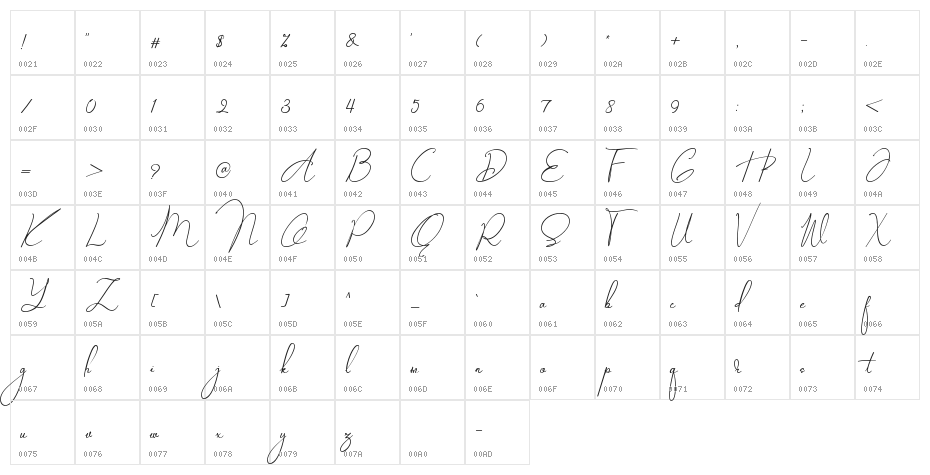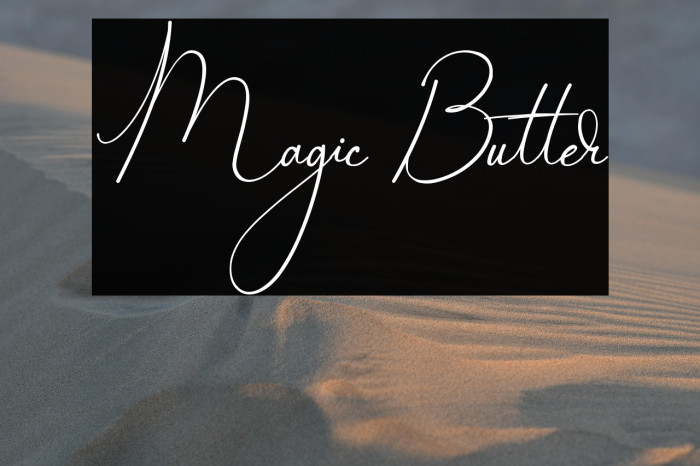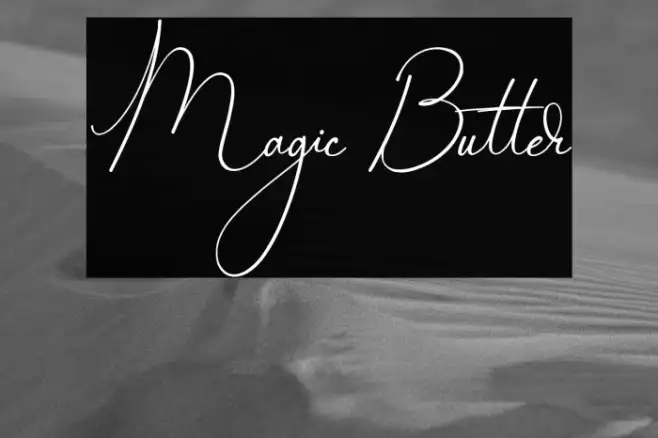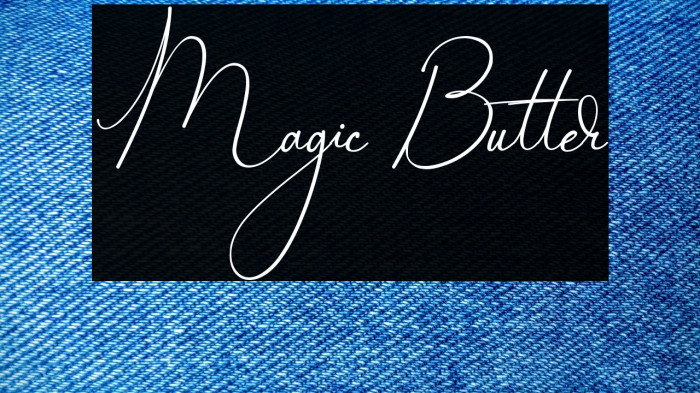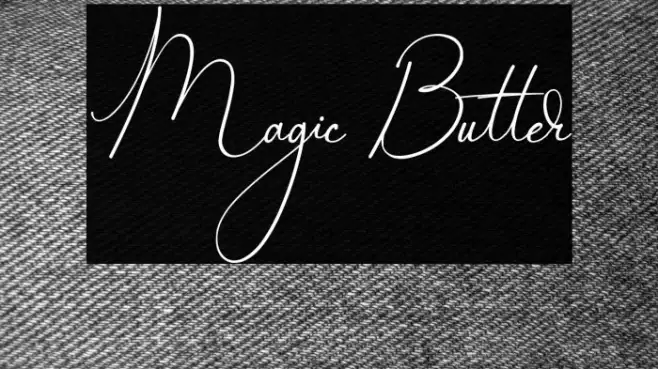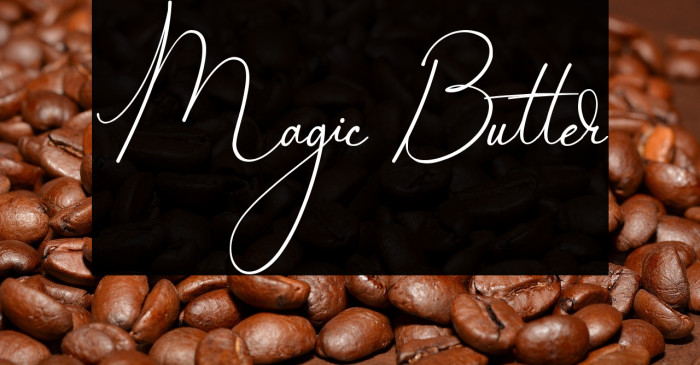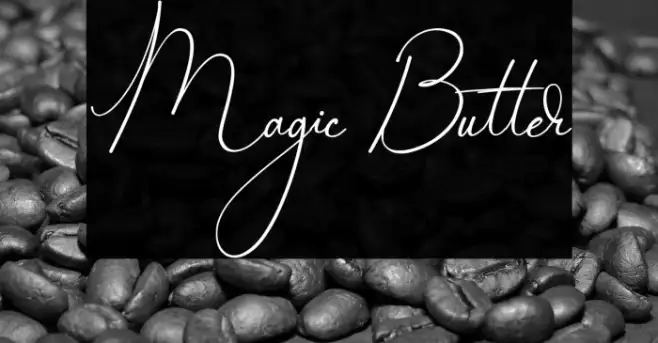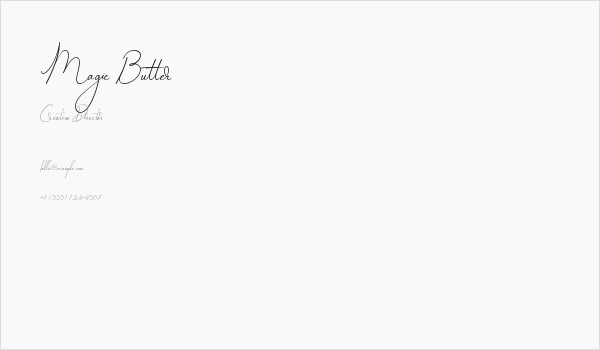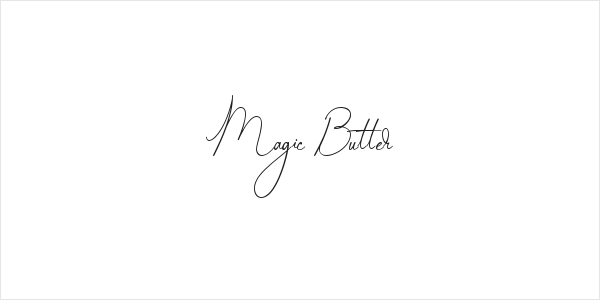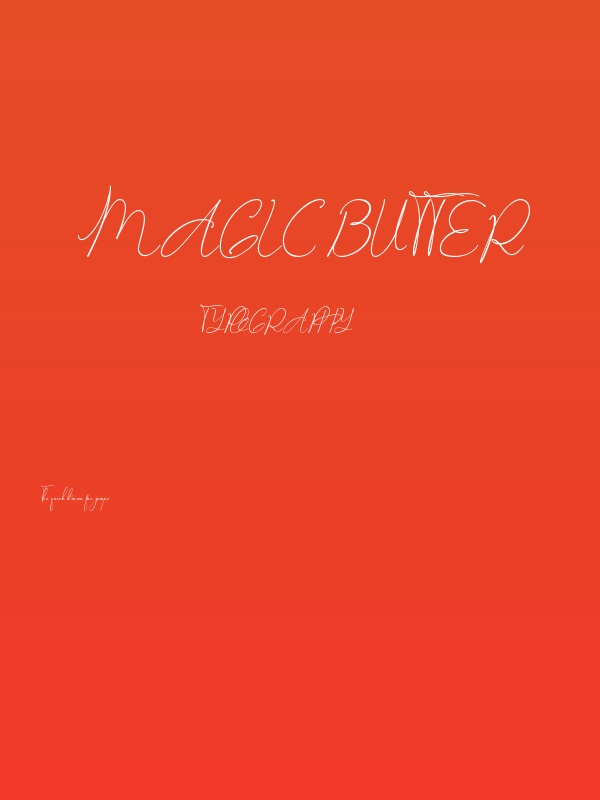
Magic Butter Font
Magic Butter Description
This font features a delicate and flowing script style, characterized by its elegant and fluid letterforms. The uppercase letters are tall and slightly slanted, giving a sense of movement and grace. The lowercase letters are intricately connected, enhancing the cursive aesthetic. The numerals maintain the same elegant style, with a consistent stroke width that complements the overall design. Special characters are seamlessly integrated, maintaining the font's cohesive look. This font exudes sophistication and is perfect for projects that require a touch of elegance and refinement.
| Proposed Projects | Ideal for wedding invitations, elegant branding, personal stationery, and upscale packaging. |